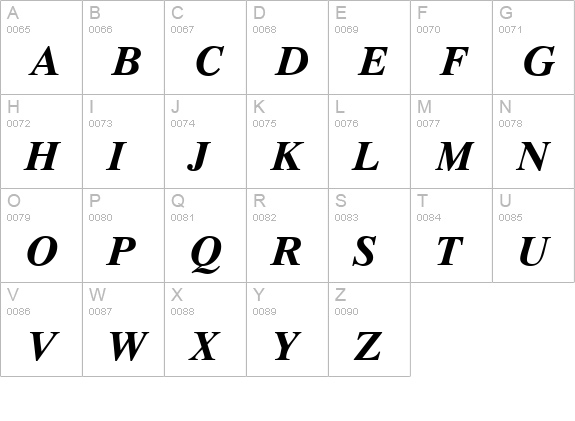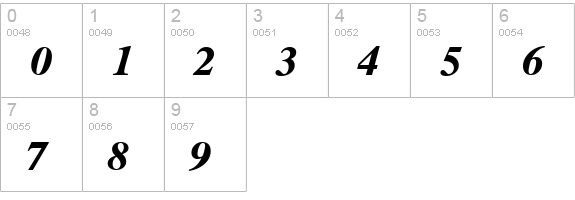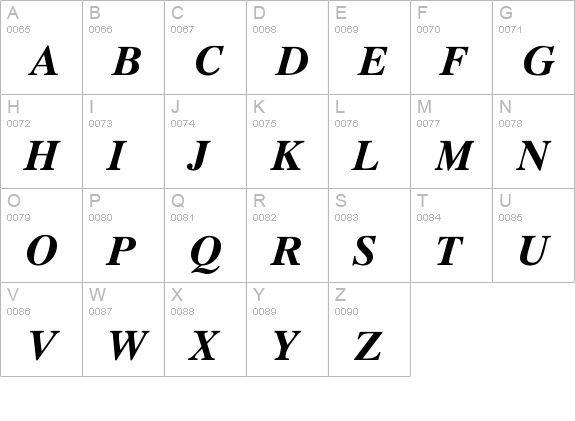
RomanEleven-Bold is a strong, high-contrast variant in the RomanEleven typeface family \xE2\x80\x94 well suited to headlines, attention-grabbing titles, and strong calls-to-action.
RomanEleven-Bold is a modern and stylish font that exudes confidence and authority. With its bold and eye-catching design, this font is perfect for making a statement in headlines, titles, and other prominent text. The strong and commanding presence of RomanEleven-Bold will surely captivate your audience and leave a lasting impression. The best part about RomanEleven-Bold is that it is completely free to download at FontsMarket.com. This means you can easily access this striking font and elevate your design projects without any cost. Whether you're working on a branding project, advertising campaign, or any other creative endeavor, RomanEleven-Bold is a versatile and powerful font that will help you stand out from the crowd. Don't miss out on this fantastic opportunity to enhance your designs with RomanEleven-Bold. Download it for free today at FontsMarket.com and unleash its bold and impactful aesthetic in your next project.